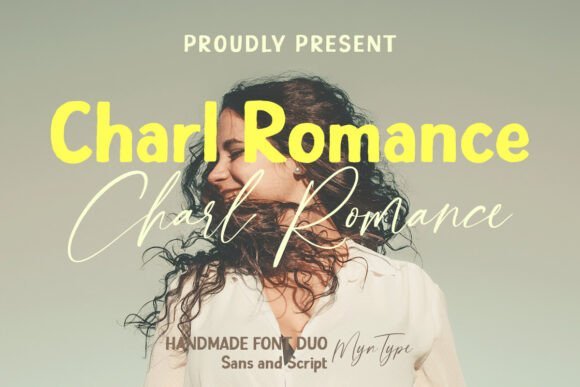
Discovering the Perfect Font for Handcrafted Designs
As a designer, there’s nothing quite like the thrill of stumbling upon the perfect font to bring a project to life. For me, it was a late-night browsing session that led me to the enchanting Charl Romance Duo Font. Its unique blend of sans serif and handwritten script elements had me hooked from the very first glance.
This captivating font is more than just a pretty face – it’s a powerful tool designed to add a personal touch to your designs. With its organic details and authentic brush strokes, Charl Romance Duo Font is the perfect choice for branding, product displays, and any other design element that requires a contemporary and handcrafted feel. Whether you’re working on a wedding invitation or a social media graphic, this font is sure to make your creations stand out.
For designers looking to add a touch of uniqueness to their work, Charl Romance Duo Font is a valuable addition to any toolkit. Its versatility and natural charm make it an ideal choice for a wide range of projects, from logos and packaging to advertising and more.
Key Features of Charl Romance Duo Font
- Font Family: Charl Romance Duo Font is a beautiful, elegant script font that consists of two styles: Regular and Duo.
- Size and Resolution: The font is available in 1,000 characters, including uppercase and lowercase letters, numbers, and special characters, with a recommended resolution of 300 DPI.
- Unique Characteristics: The Charl Romance Duo Font features beautiful, flowing connections between letters, making it perfect for creating romantic and elegant designs, such as wedding invitations, posters, and greeting cards.
Charl Romance Duo Font Review
The Charl Romance Duo Font is an elegant, romantic script font that exudes a touch of sophistication. Here’s my honest take on this lovely font.
- ✨ Elegant, flowing lines: The font’s organic feel creates a beautiful, romantic atmosphere perfect for wedding invitations, love letters, or any other project that needs a touch of whimsy.
- ✨ Versatile: Charl Romance Duo can be used for both digital and print projects, making it a great addition to any designer’s font library.
- ✨ Beautiful ligatures: The font’s ligatures are carefully designed to enhance readability and add to the overall romantic feel.
- ⚠️ Limited font sizes: The font may not be the best choice for large font sizes, as the lines can become too thin and difficult to read.
- ⚠️ Limited support for non-Latin scripts: While the font is well-suited for Latin-based languages, it may not support non-Latin scripts as well.
Overall, I’m impressed with the Charl Romance Duo Font. It’s a beautiful, elegant font that’s perfect for projects that need a touch of romance. While it has some limitations, it’s still a great addition to any designer’s font library.
Practical Application Guide for Charl Romance Duo Font
For optimal results, pair Charl Romance Duo Font with a clear and simple design aesthetic. Use this font for titles, headings, and other emphasis text to create a romantic and elegant look.
Charl Romance Duo Font is ideal for wedding invitations, romance-themed posters, and other designs that require a touch of elegance and sophistication. It’s also great for creating a vintage or antique look in your designs.